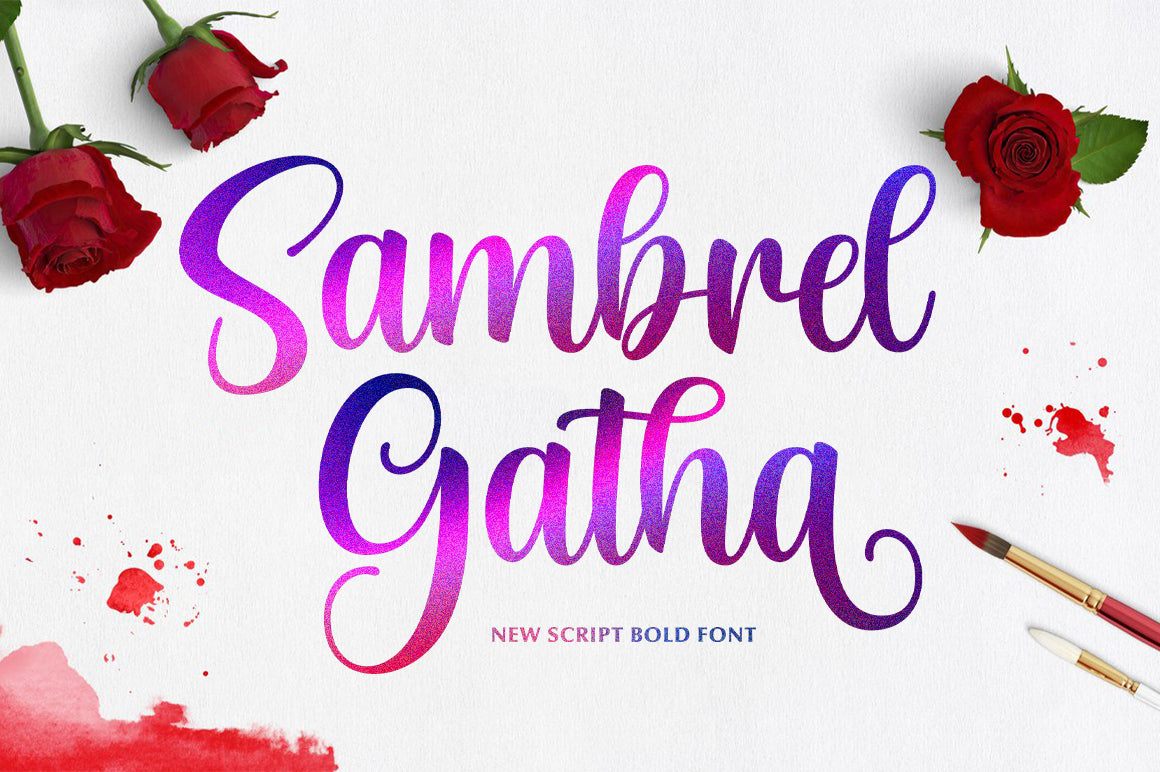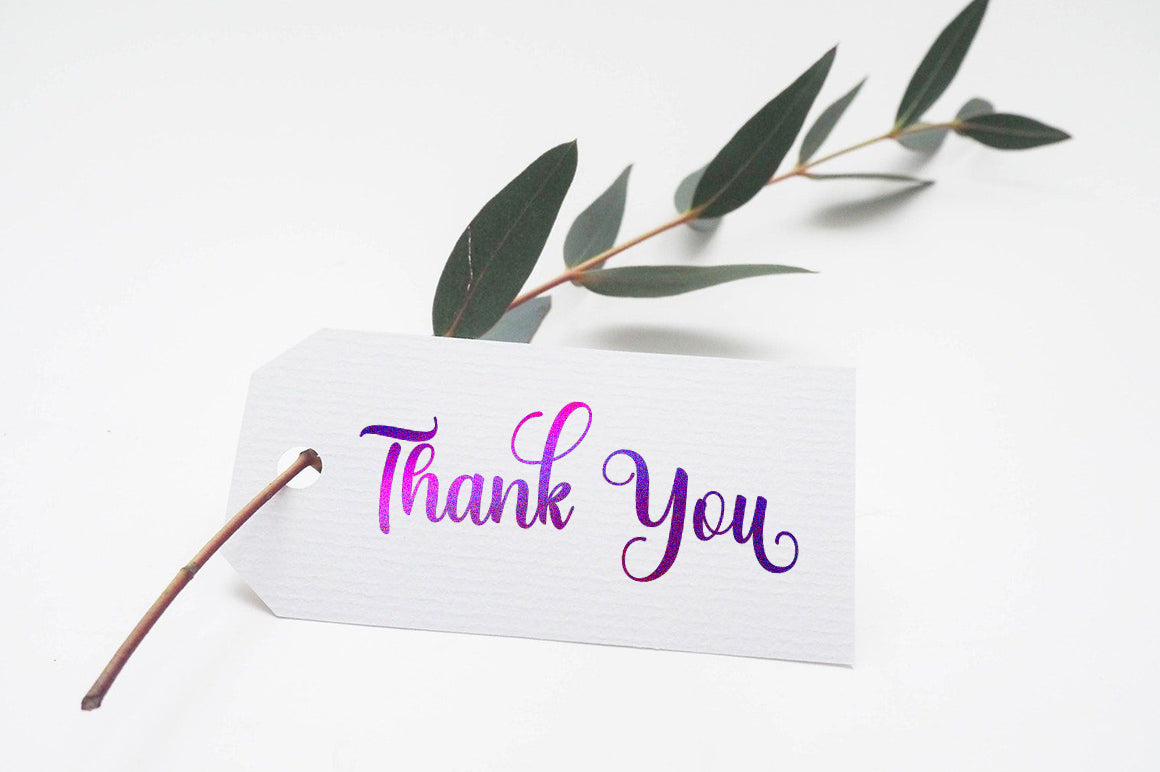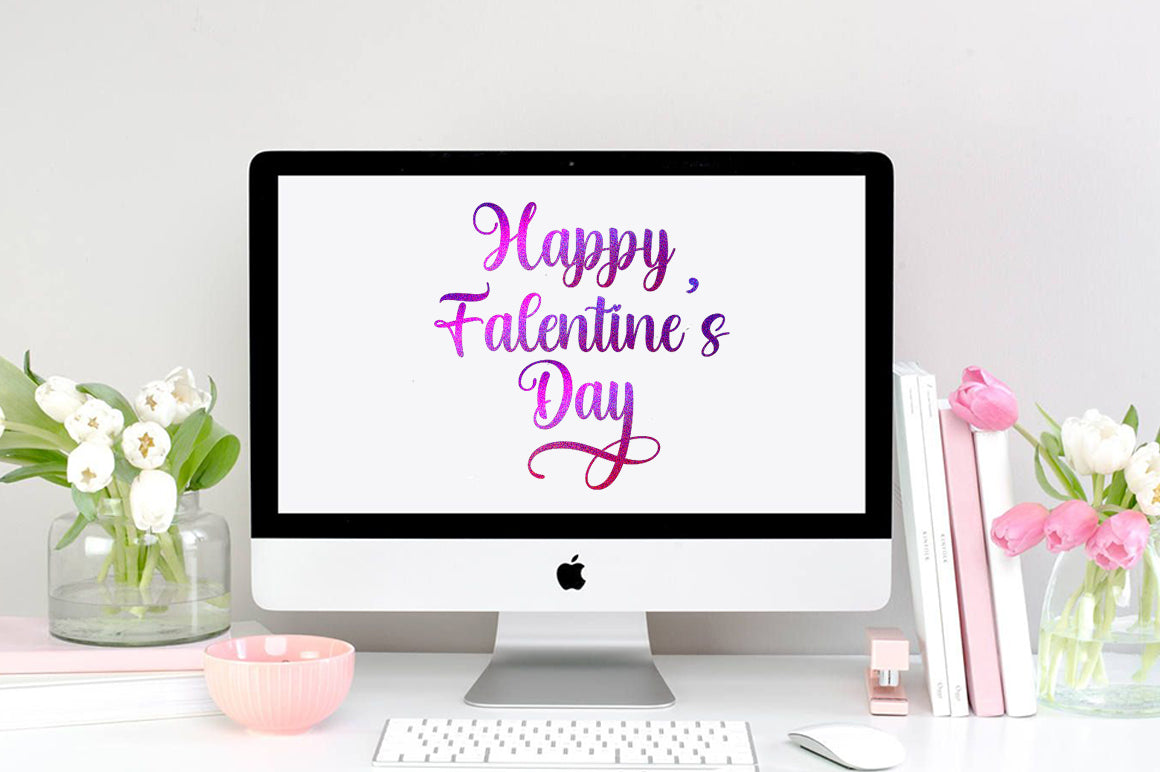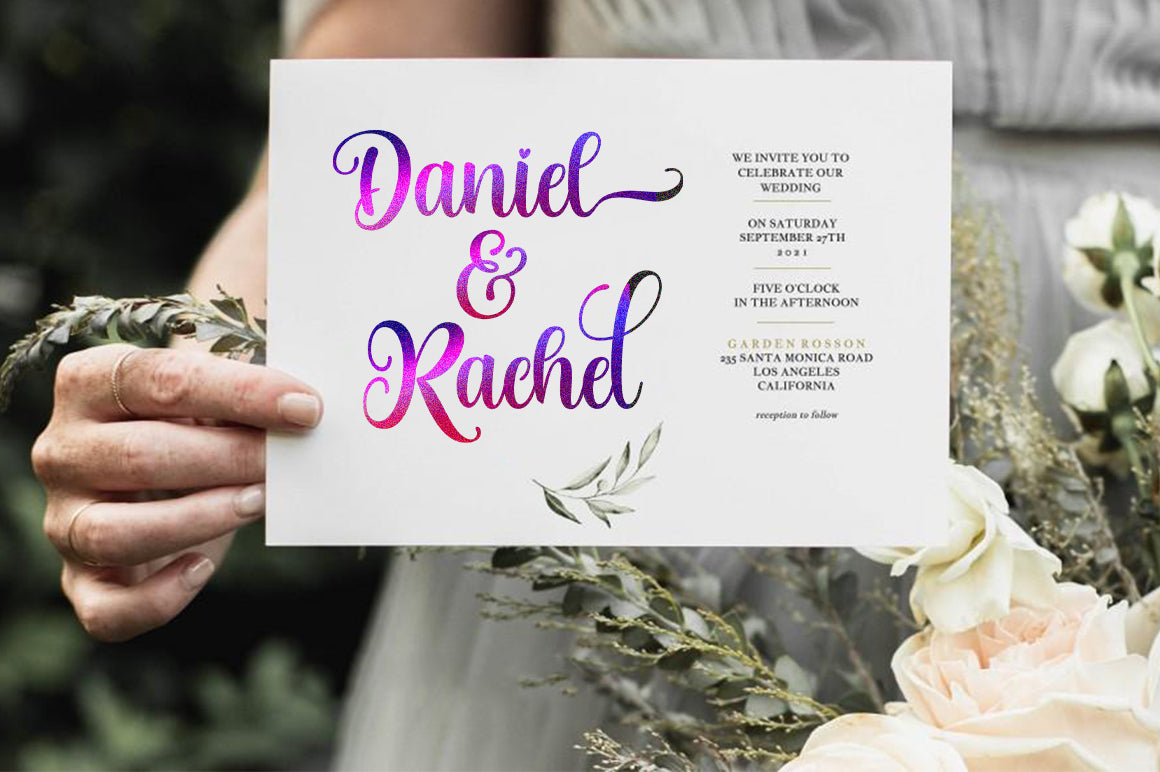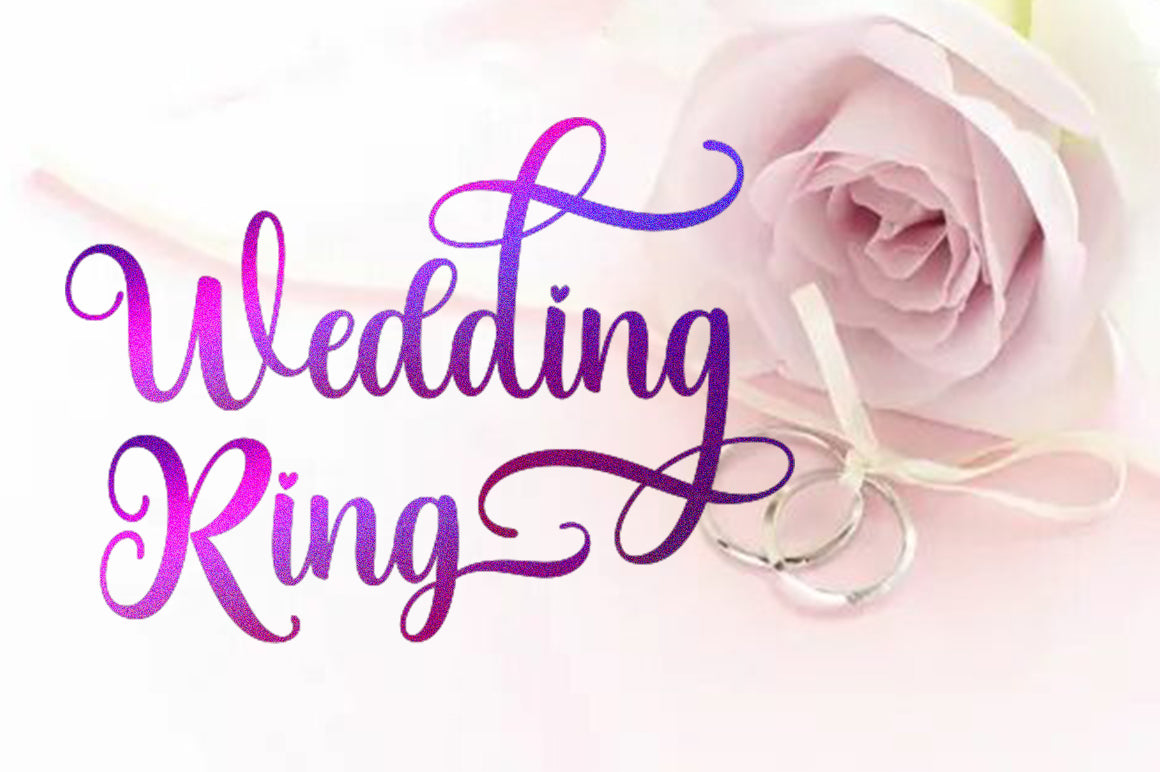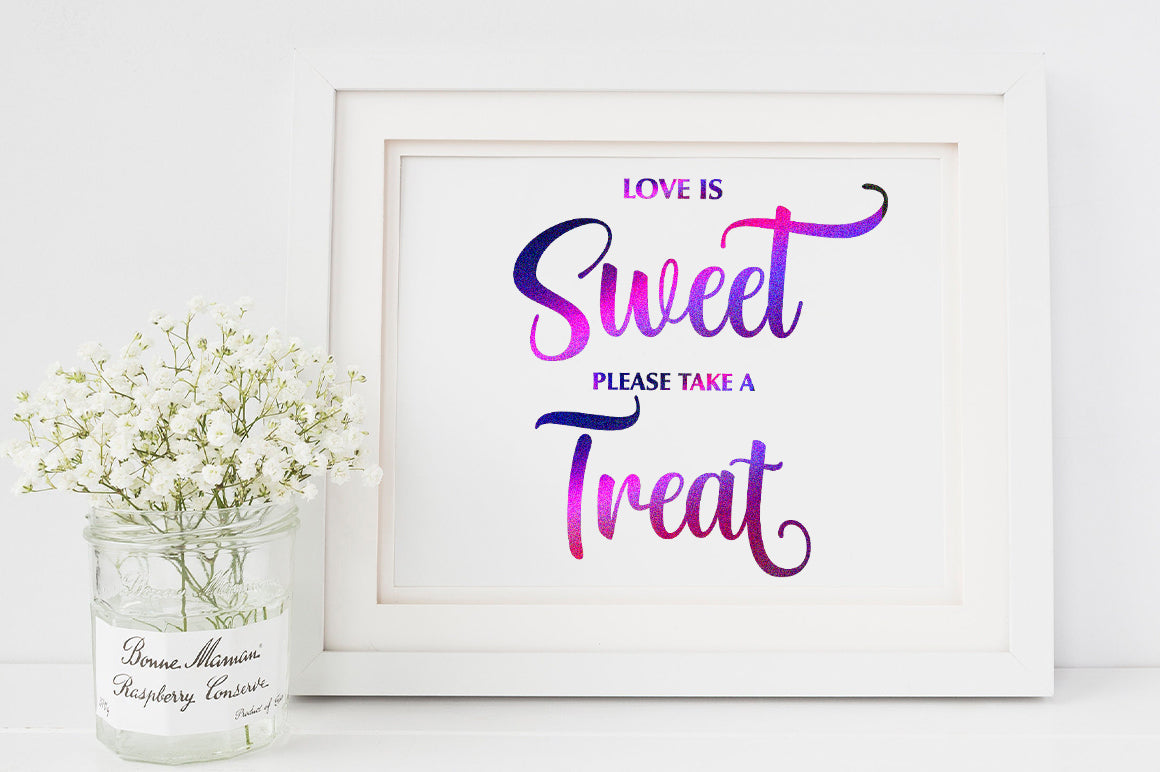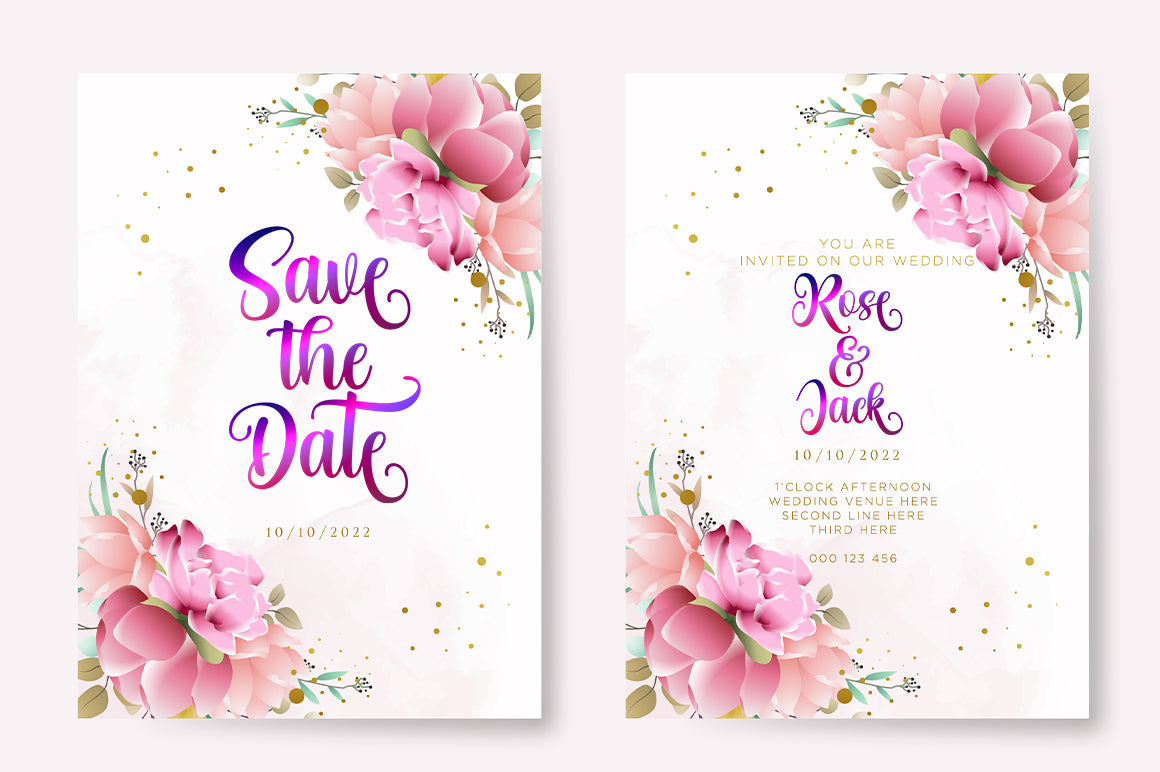
Sambrel Gatha
About Sambrel Gatha
Sambrel Gatha is a lovely script font with a contemporary atmosphere and impeccable form, inspired by timeless classic calligraphy. Not too thin and not too thick, this font was designed to enhance the beauty of your projects. This font is PUA encoded which means you can access all glyphs and swashes with ease!